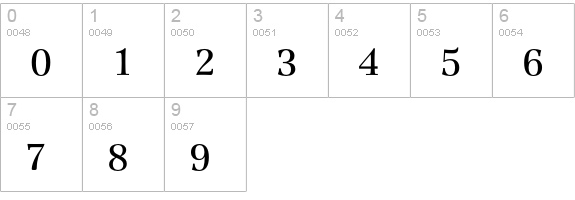
JamilleEF-Book is a comfortable, highly readable variant in the JamilleEF typeface family \xE2\x80\x94 well suited to long-form body text, articles, and editorial content.
Introducing JamilleEF-Book, a stunning font designed to captivate and elevate your typography game. This exquisite typeface combines the perfect balance of elegance and modernity, making it the ideal choice for a wide range of design projects. With its clean lines and graceful curves, JamilleEF-Book exudes sophistication and professionalism. Whether you're creating a sleek logo, a stylish website, or a striking advertising campaign, this font will effortlessly enhance the visual appeal of your work. One of the most remarkable aspects of JamilleEF-Book is that it is freely available to download at FontsMarket.com. This means that you can harness the power and beauty of this font without spending a dime. With its generous licensing terms, you can use JamilleEF-Book for both personal and commercial projects, making it an invaluable asset for designers and creatives worldwide. Crafted with meticulous attention to detail, JamilleEF-Book showcases exceptional legibility at any size, ensuring that your message is conveyed with clarity and impact. Its versatile nature allows it to seamlessly adapt to various design styles, from minimalist to bold and experimental, making it a versatile tool in your typographic arsenal. Furthermore, JamilleEF-Book supports a wide range of languages, enabling you to effortlessly communicate with a global audience. Its extensive character set includes punctuation marks, numerals, and special symbols, ensuring that your design is not only visually appealing but also functional and comprehensive. So why wait? Elevate your designs with JamilleEF-Book, the free font that combines elegance, modernity, and versatility. Download it today at FontsMarket.com and unlock a world of limitless creativity.